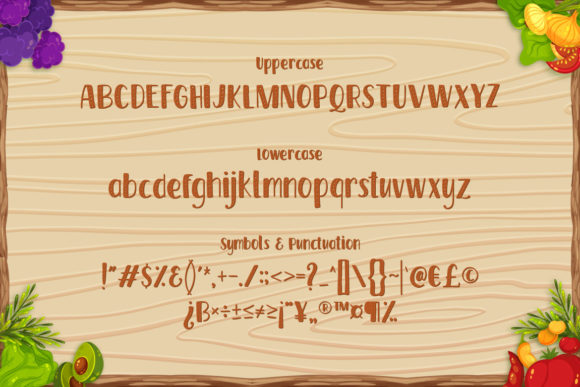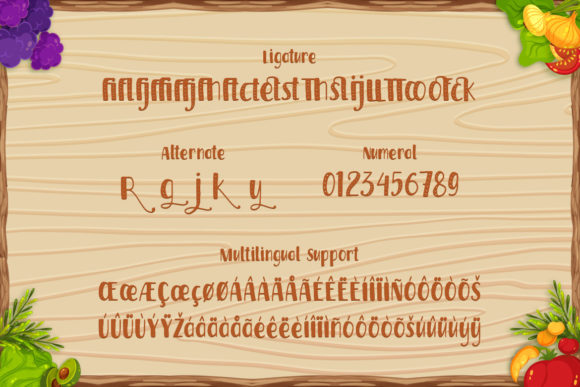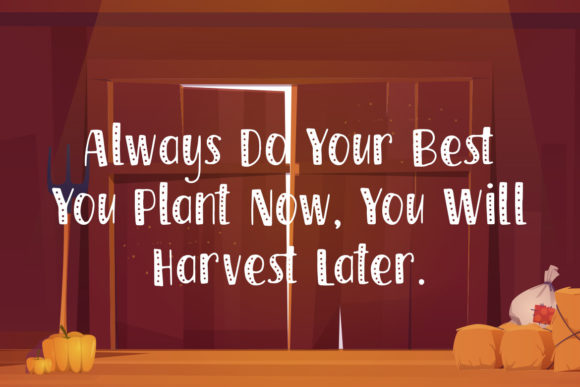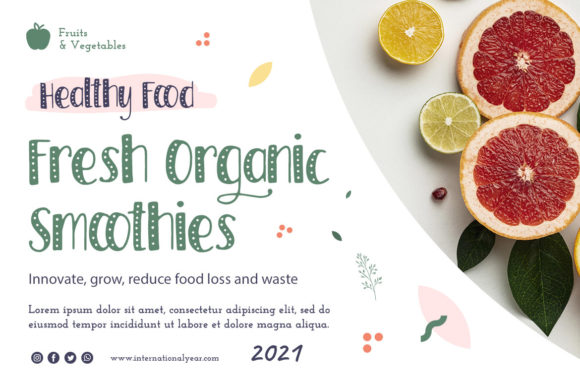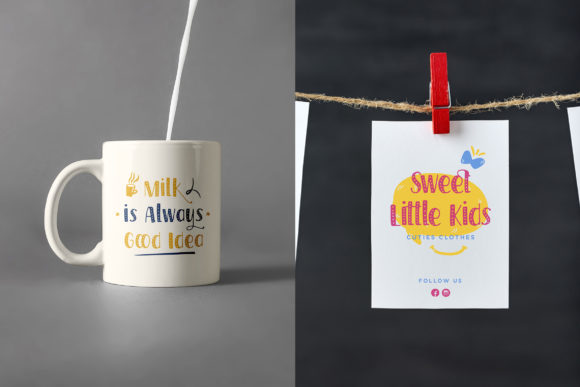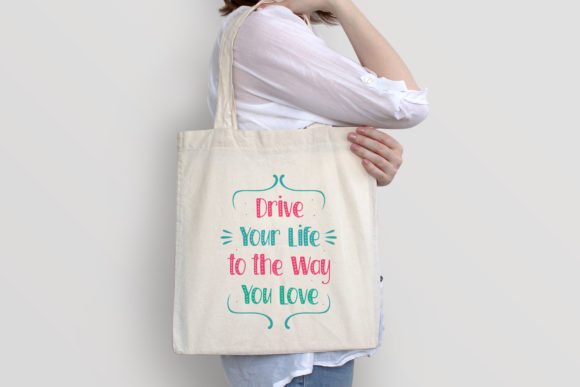
Introduction to Harvest Time Font
Harvest Time is a playful and creative decorative font.
It has friendly characters and a neat, crafty style that can elevate the look of any creation .
Key Features of Harvest Time Font